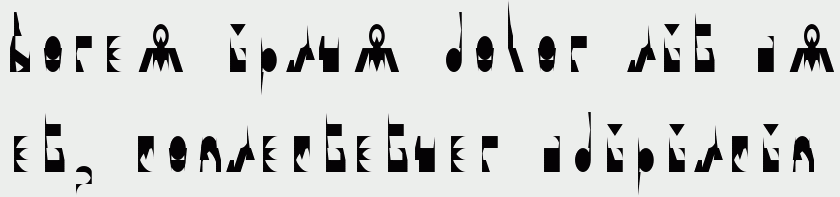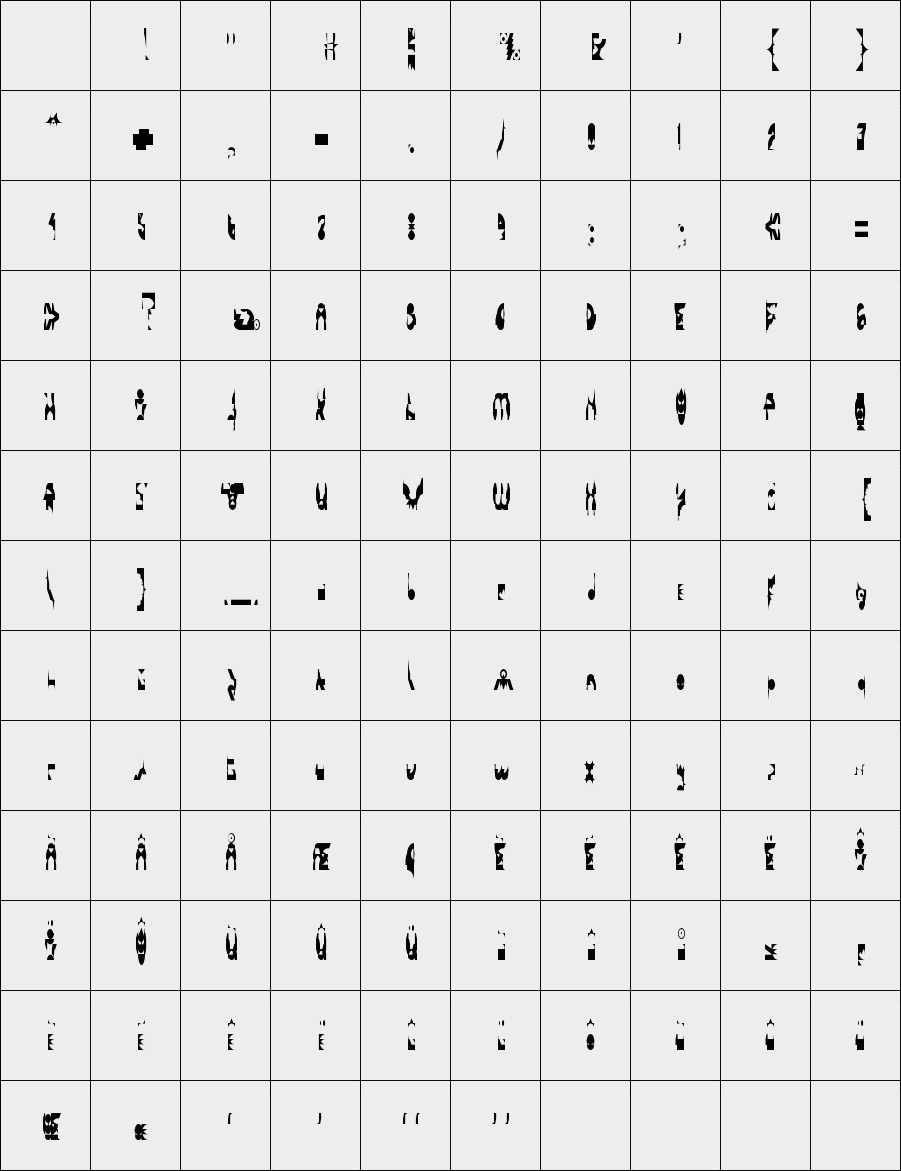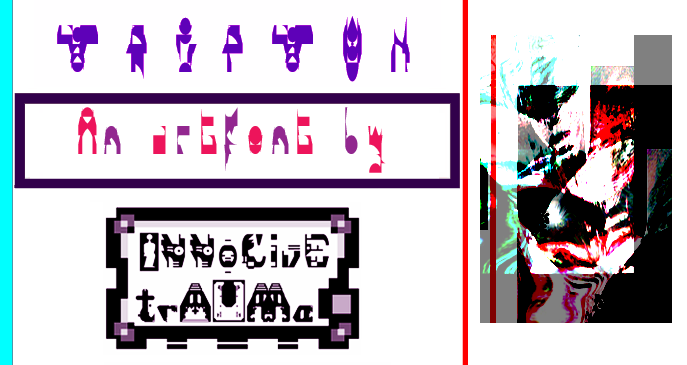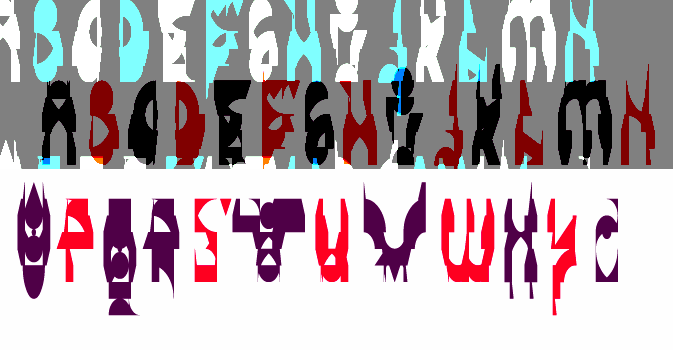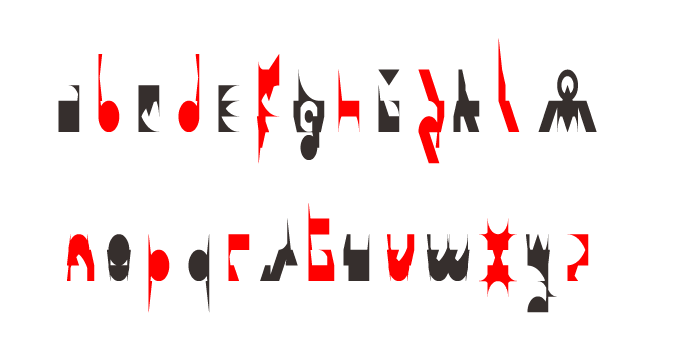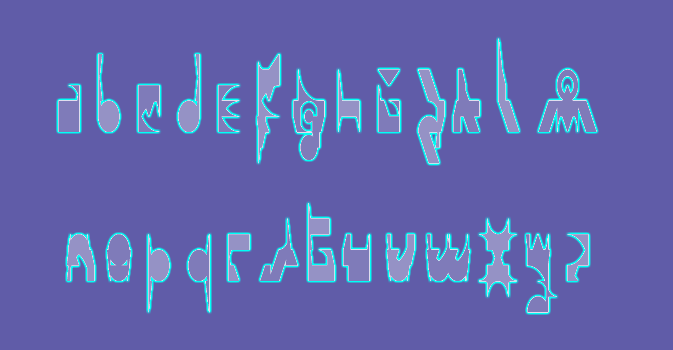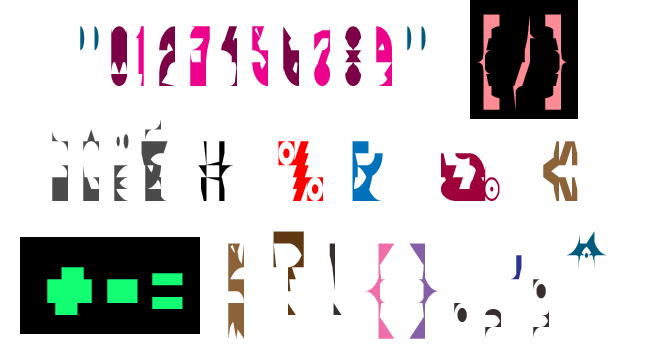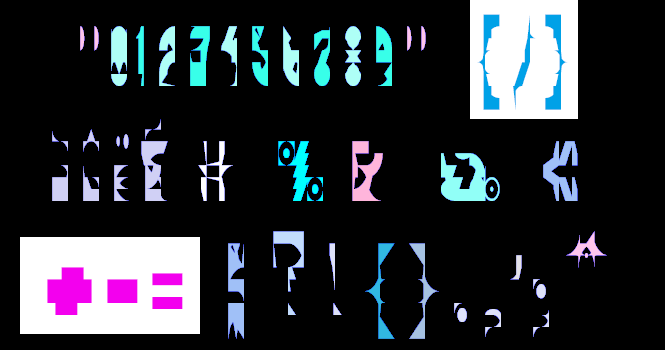
trAUMa 66 / Tripton
"Tripton", like all the "trAUMa" series, works at the frontier between Art & Type Design, Figuration & Abstraction, each font is a comprehensive world in which every glyph is a "living" entity. But put together they can produce your messages in the most accurate way.